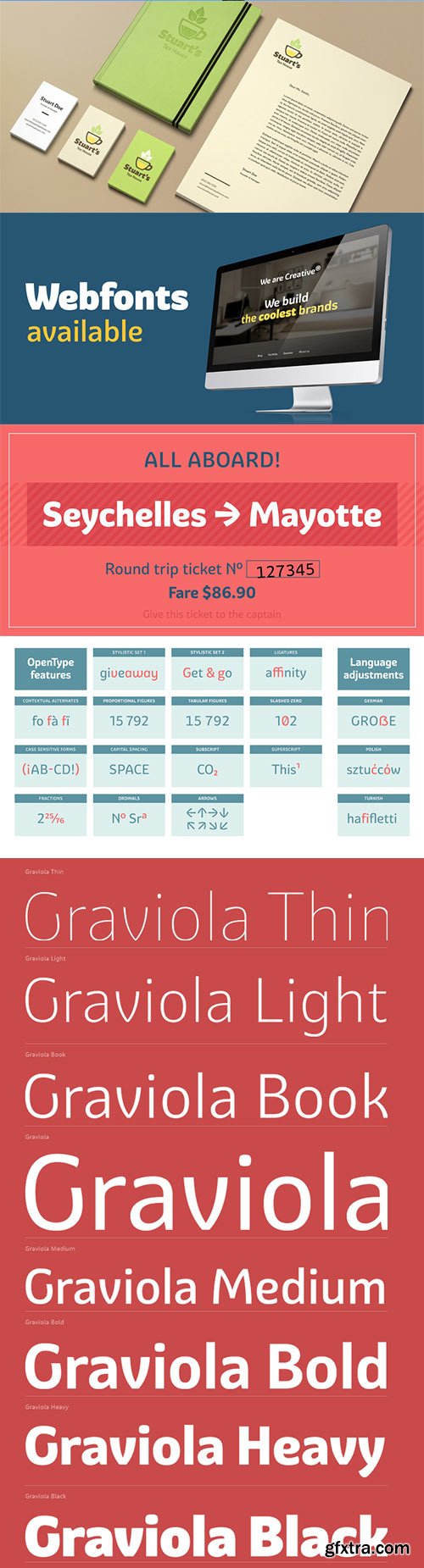
West European Diacritics, Euro, Ligatures, Central Europe, Baltic, Turkish, Romanian, Dingbats
With semi-rounded terminals, Graviola is soft and friendly. The family consists of 8 individual weights, from Thin to Black. While the intermediate ones are suited for body text, the extreme weights look specially beautiful at display sizes. Each font contains 533 glyphs, supporting more than 40 languages.
Stylistic sets provide alternates in two groupings (a, v, w, y and G, g, &).